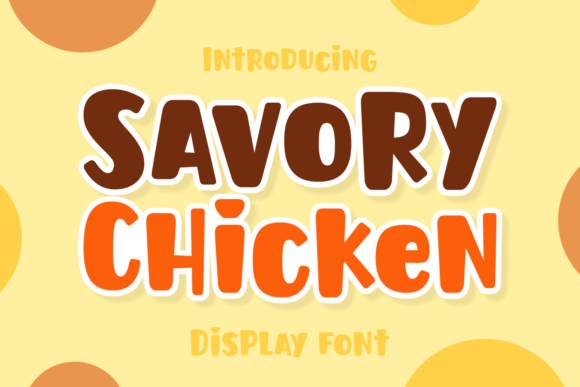
Hold on tight to your creative reins and get ready to savor the delectable flavors of Savory Chicken Font, a font family that's both thick and chunky, yet undeniably charming! This display font is a visual feast, boasting cute and chubby characters that dance across your designs, creating a captivating visual symphony. Whether you're crafting eye-catching headlines, designing posters that demand attention, or adding a touch of whimsy to your t-shirts, Savory Chicken Font is the perfect ingredient to make your creative vision come to life.
Immerse yourself in a world of endless possibilities as you explore the diverse applications of this magnificent font. Create outstanding typography that tantalizes the eyes and ignites the imagination. Let the bold strokes and playful curves of Savory Chicken Font take center stage in your designs, leaving an unforgettable impression that lingers in the minds of your audience.
With Savory Chicken Font, the boundaries of creativity dissolve, and a new realm of artistic expression opens before you. Unleash your inner artist and let your imagination run wild as you craft designs that are as unique and captivating as your own personality. Dive into the depths of your creative soul and let Savory Chicken Font be your guide, leading you to typographic masterpieces that will leave your audience craving for more.
But don't just take our word for it. Experience the sheer brilliance of Savory Chicken Font firsthand and witness the transformation it brings to your creative projects. Let the words flow effortlessly from your fingertips, knowing that each character carries the weight of creativity and charm.
Savory Chicken Font: A Typographic Delight that Ignites the Senses!